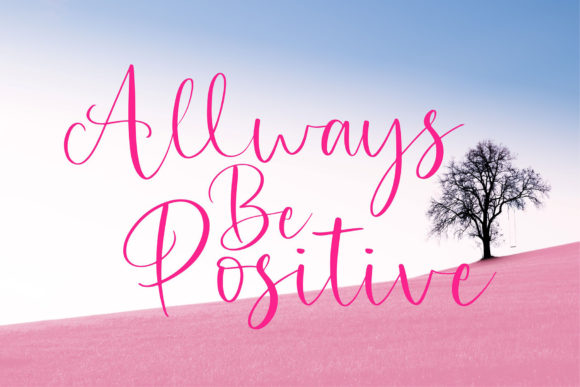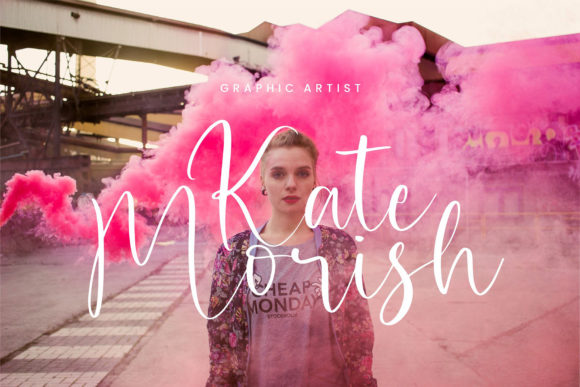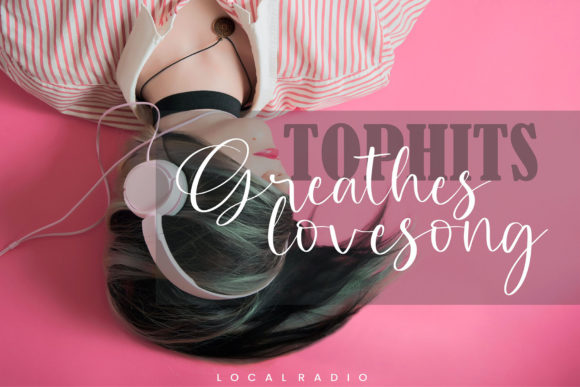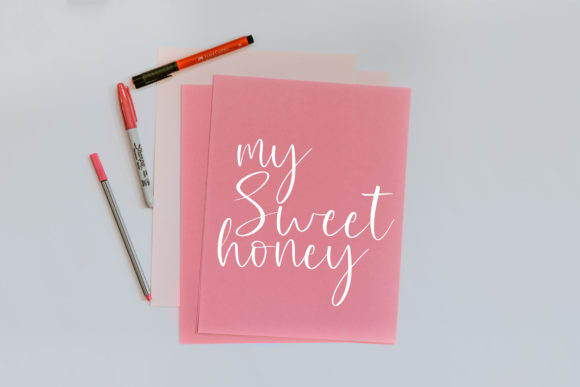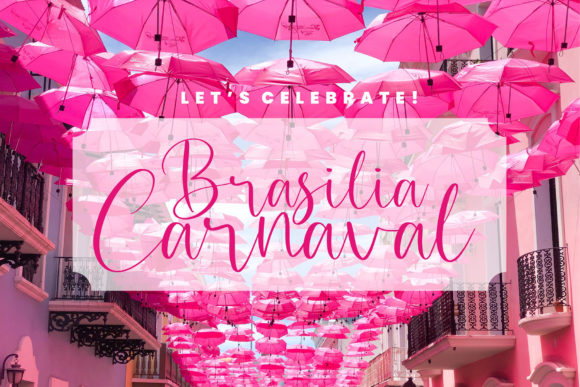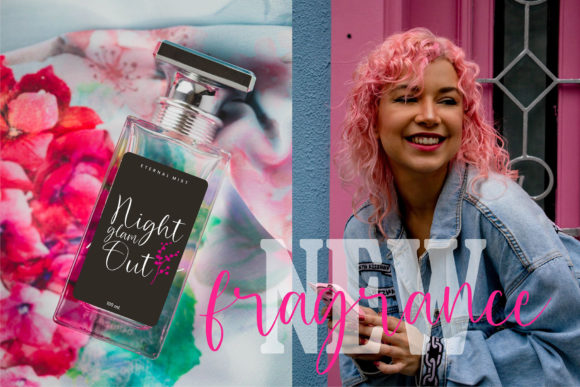
Grettisa Font: Elevate Your Designs with Elegance and Sophistication
In the world of typography, a good font can make all the difference in creating stunning designs that capture the essence of your message. If you’re a designer, crafty DIY enthusiast, or simply someone who appreciates beautiful typography, you’re in for a treat. Introducing Grettisa, a unique and interesting handwritten font that’s about to take your designs to the next level. With its incredibly stylish look, Grettisa is the perfect choice for creating gorgeous and timeless designs that exude elegance and sophistication.
The Charm of Grettisa Font
Grettisa Font is a one-of-a-kind, handwritten typeface that boasts a distinctive charm. Its elegant strokes, fluid connections, and delicate flair make it an instant favorite among designers and crafters. Whether you’re working on a logo, quote, invitation, business card, or PowerPoint presentation, Grettisa adds a touch of refinement and poise that’s sure to impress. The font’s unique character is perfect for those who want to add a personal touch to their designs without sacrificing professionalism.
Endless Design Possibilities with Grettisa
One of the best things about Grettisa Font is its versatility. Its stylish and adaptable nature makes it suitable for a wide range of design projects, including:
- Logos: Create a lasting impression with a custom logo that showcases your brand’s personality and values.
- Quotes: Add a touch of elegance to your inspirational quotes and make them truly shareable.
- Invitations: Design beautiful and sophisticated invitations for weddings, parties, and special events.
- Business Cards: Stand out from the crowd with a professionally designed business card that features Grettisa’s stylish script.
- PowerPoint Presentations: Elevate your presentations with a font that’s both engaging and easy to read.
Why Choose Grettisa Font?
So, what sets Grettisa apart from other fonts? Here are just a few reasons why designers and crafters are falling in love with this beautiful typeface:
- Unique and Handwritten: Grettisa’s handmade charm makes it a one-of-a-kind font that’s sure to capture attention.
- Elegant and Sophisticated: Its refined strokes and classic connections evoke a sense of luxury and poise.
- Versatile: Grettisa is suitable for a wide range of design projects, from logos and quotes to invitations and presentations.
Tips for Getting the Most Out of Grettisa Font
To make the most of Grettisa’s stunning design, here are a few tips to keep in mind:
- Experiment with Colors: Grettisa looks stunning in a variety of colors, from rich jewel tones to soft pastels.
- Play with Pairings: Combine Grettisa with other fonts to create a unique and visually appealing typography.
- Pay Attention to Spacing: Make sure to adjust the spacing and kerning to ensure your text looks balanced and elegant.
In conclusion, Grettisa Font is a game-changer for designers and crafters who want to create stunning, timeless designs that exude elegance and sophistication. With its unique and interesting handwritten style, Grettisa is the perfect choice for a wide range of design projects. Whether you’re working on a logo, quote, invitation, or presentation, Grettisa is sure to impress. So why wait? Fall in love with Grettisa’s incredibly stylish look and take your designs to the next level!